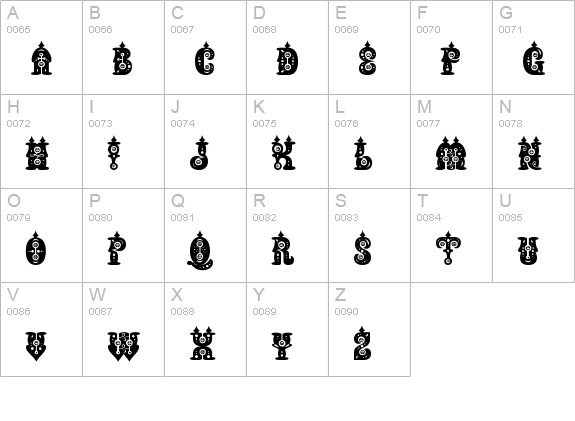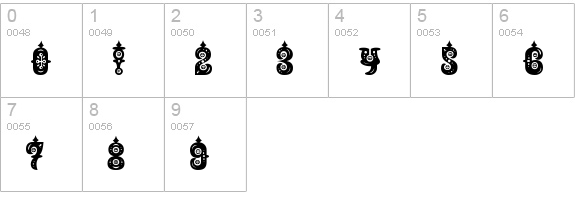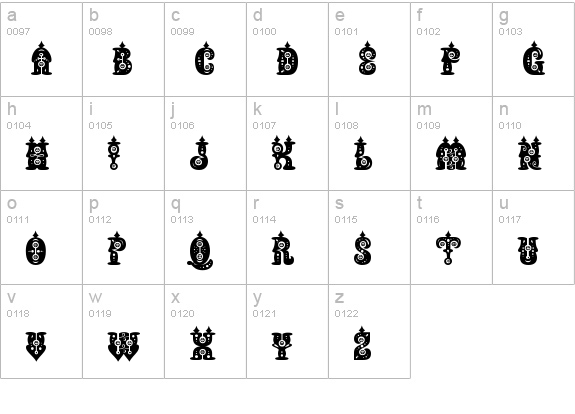
Buxotic Font Details
Buxotic font is a stunning display typeface that exudes elegance and sophistication. With its unique blend of modern and classic design elements, this font is perfect for creating eye-catching headlines, logos, and branding materials. The sleek lines and stylish curves of Buxotic font make it a versatile choice for any design project. The best part? Buxotic font is available for free download at FontsMarket.com. Whether you're a professional designer or just starting out, you can access this beautiful font without any cost. Don't miss out on the opportunity to enhance your designs with the timeless beauty of Buxotic font. Download it today and elevate your creative projects to the next level.